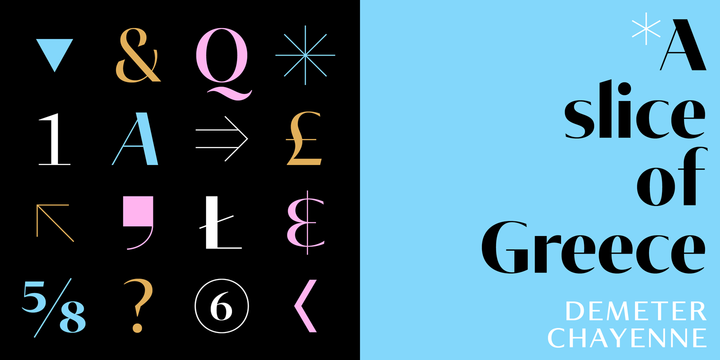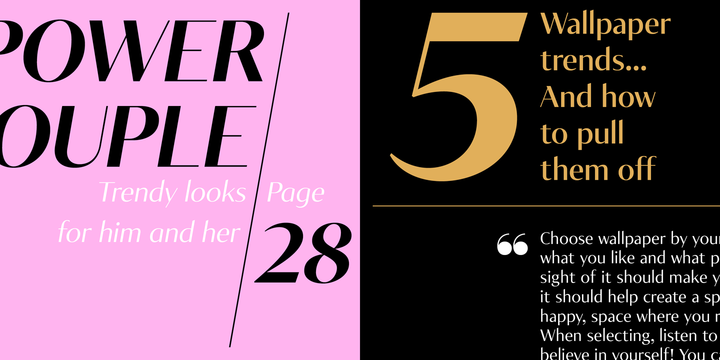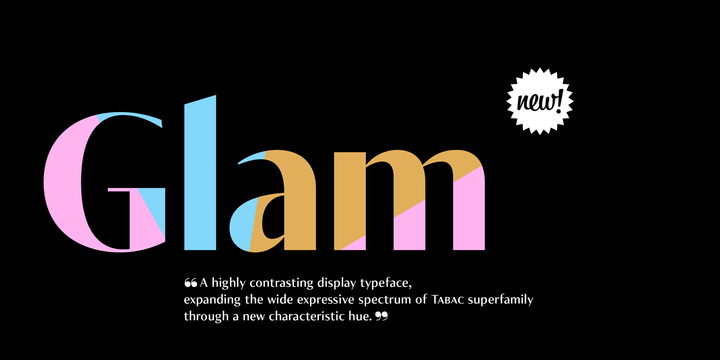
Tabac Glam
Tabac Glam Font Family
A special category of typefaces, combining together principles of both serif and sans-serif, is sometimes described as Linear-Antiqua by German typographers. This concept catches the eye wherever it appears and this is also the case of Tabac Glam — a highly contrasting display typeface, expanding the wide expressive spectrum of our Tabac super-family through a new characteristic hue.